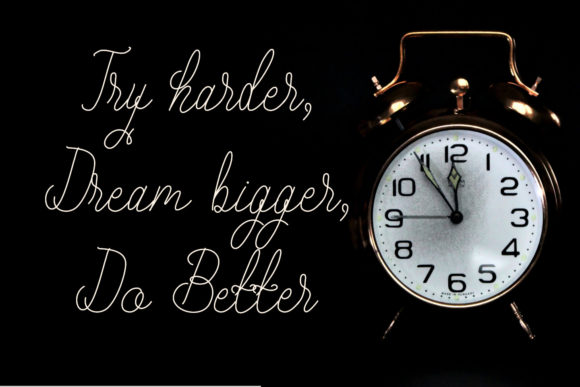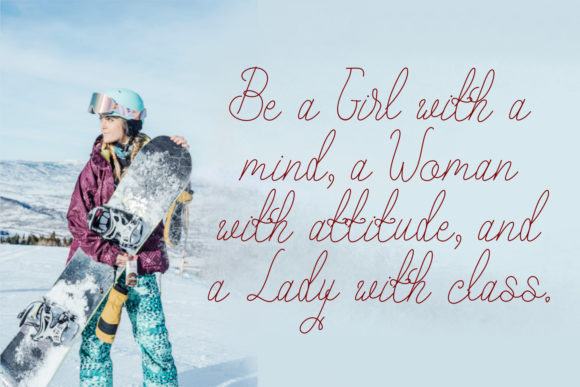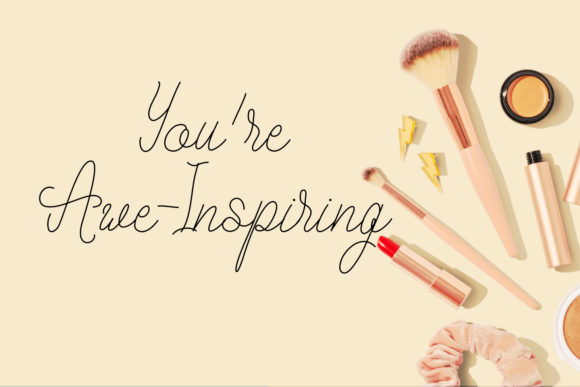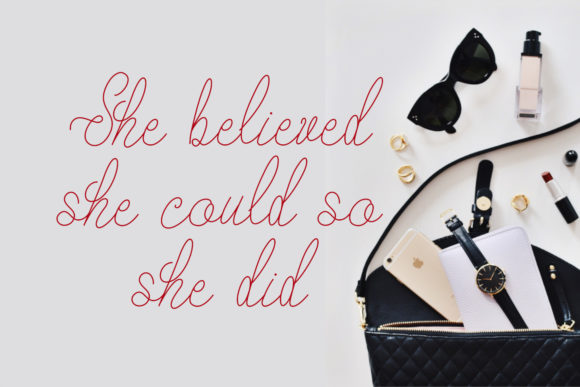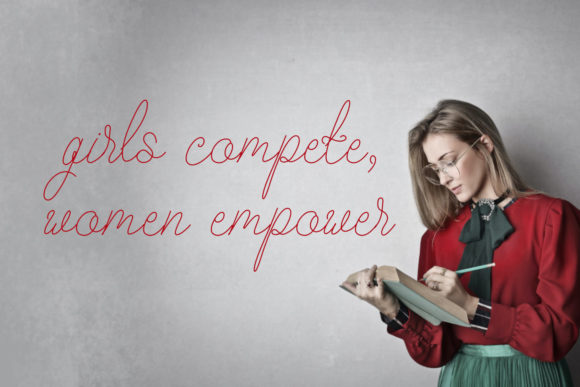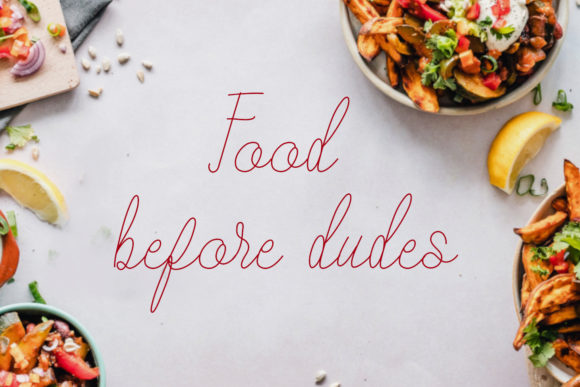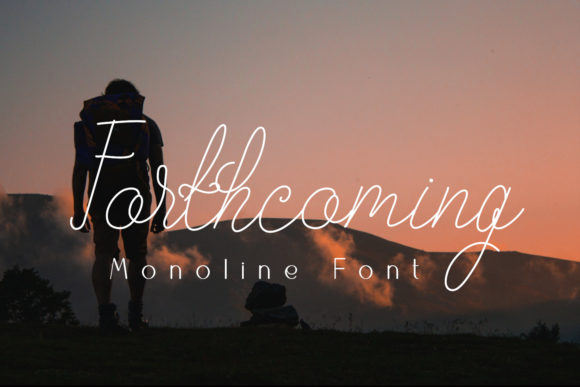
Forthcoming Font: Elevate Your Designs with Elegance and Sophistication
In the world of typography, a well-chosen font can make all the difference in elevating your design from ordinary to extraordinary. For designers and crafters seeking a touch of elegance and sophistication, the Forthcoming Font is an excellent choice. This stunning handwritten font is perfect for a variety of applications, including wedding invitations, thank you cards, quotes, greeting cards, logos, business cards, and more.
The Characteristics of Forthcoming Font
Forthcoming Font is a thin and elegant handwritten font that boasts a range of characteristics that set it apart from other fonts. Some of its notable features include:
- Varying Baseline: The font’s varying baseline gives it a natural, organic feel that mimics the imperfections of handwriting.
- Smooth Lines: The smooth lines of Forthcoming Font create a sense of fluidity and continuity, making it perfect for designs that require a touch of elegance.
- Gorgeous Glyphs: The font features a range of gorgeous glyphs that add an extra layer of sophistication to your designs.
- Stunning Alternates: With stunning alternates, you can add variety and interest to your designs, making them more engaging and dynamic.
Forthcoming Font is particularly well-suited for wedding and event designs, where elegance and sophistication are paramount. Whether you’re designing wedding invitations, save-the-date cards, or thank you cards, this font is sure to impress. Its thin and elegant lines create a romantic and whimsical feel that’s perfect for celebrating special occasions.
Versatility for Various Design Applications
While Forthcoming Font excels in wedding and event designs, its versatility makes it suitable for a wide range of applications. Some other design uses for this font include:
- Logos: The font’s elegant lines and sophisticated feel make it perfect for logos that require a touch of refinement.
- Business Cards: Forthcoming Font is an excellent choice for business cards, adding a level of professionalism and elegance to your design.
- Quotes and Typography: The font’s gorgeous glyphs and smooth lines make it ideal for showcasing quotes and typography.
- Greeting Cards: Whether you’re designing greeting cards for special occasions or everyday correspondence, Forthcoming Font is a great choice.
Why Choose Forthcoming Font?
With so many fonts available, why choose Forthcoming Font? Here are just a few reasons why designers and crafters love this font:
- Unique and Elegant: Forthcoming Font offers a unique and elegant look that’s sure to elevate your designs.
- Highly Versatile: The font’s versatility makes it suitable for a wide range of applications, from wedding designs to logos and business cards.
- Easy to Read: Despite its thin lines, Forthcoming Font is easy to read, making it perfect for designs that require a clear and concise message.
In conclusion, Forthcoming Font is a stunning handwritten font that offers elegance, sophistication, and versatility. Whether you’re a designer or crafter looking to elevate your designs, this font is an excellent choice. With its varying baseline, smooth lines, gorgeous glyphs, and stunning alternates, Forthcoming Font is sure to become a go-to font in your design arsenal.